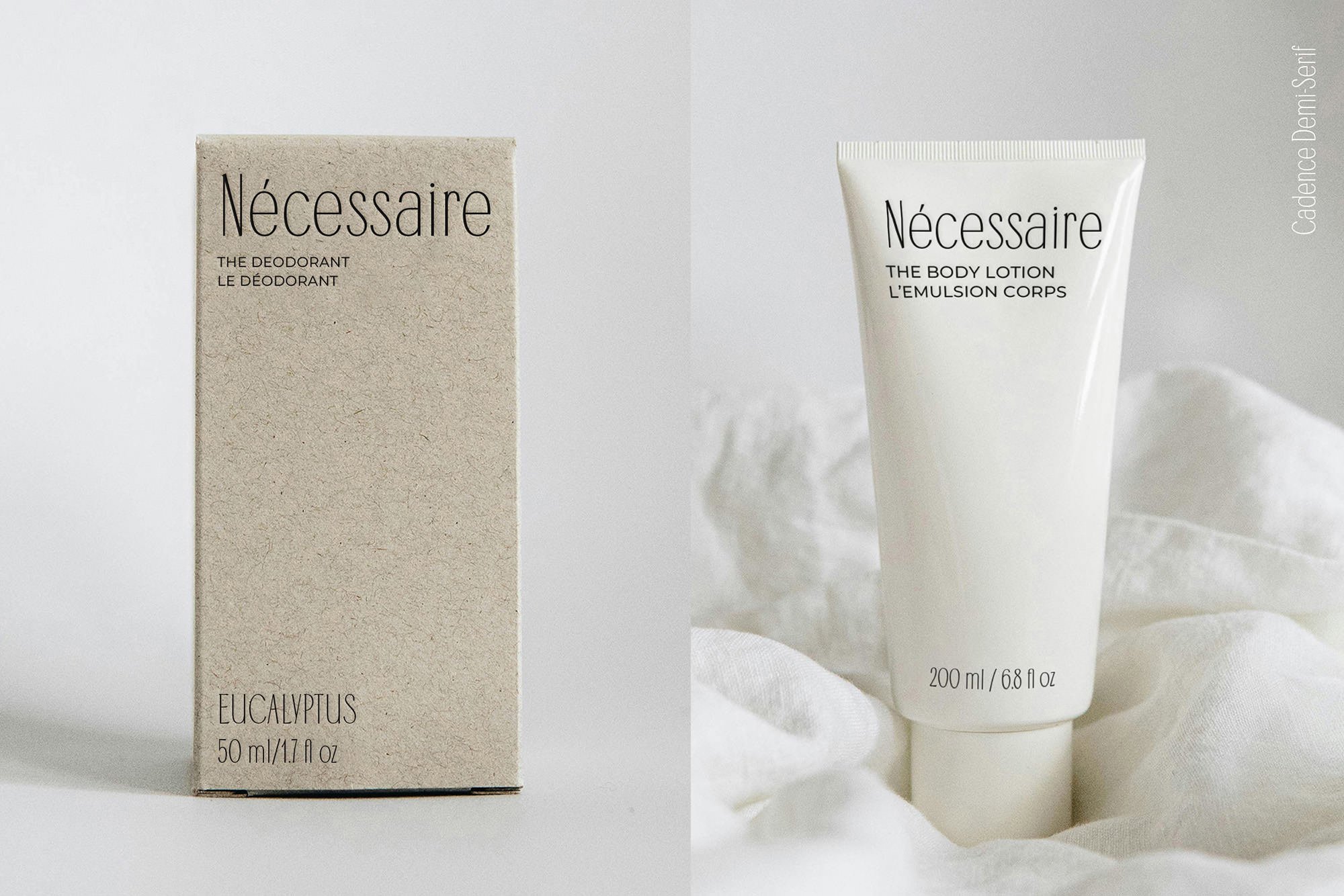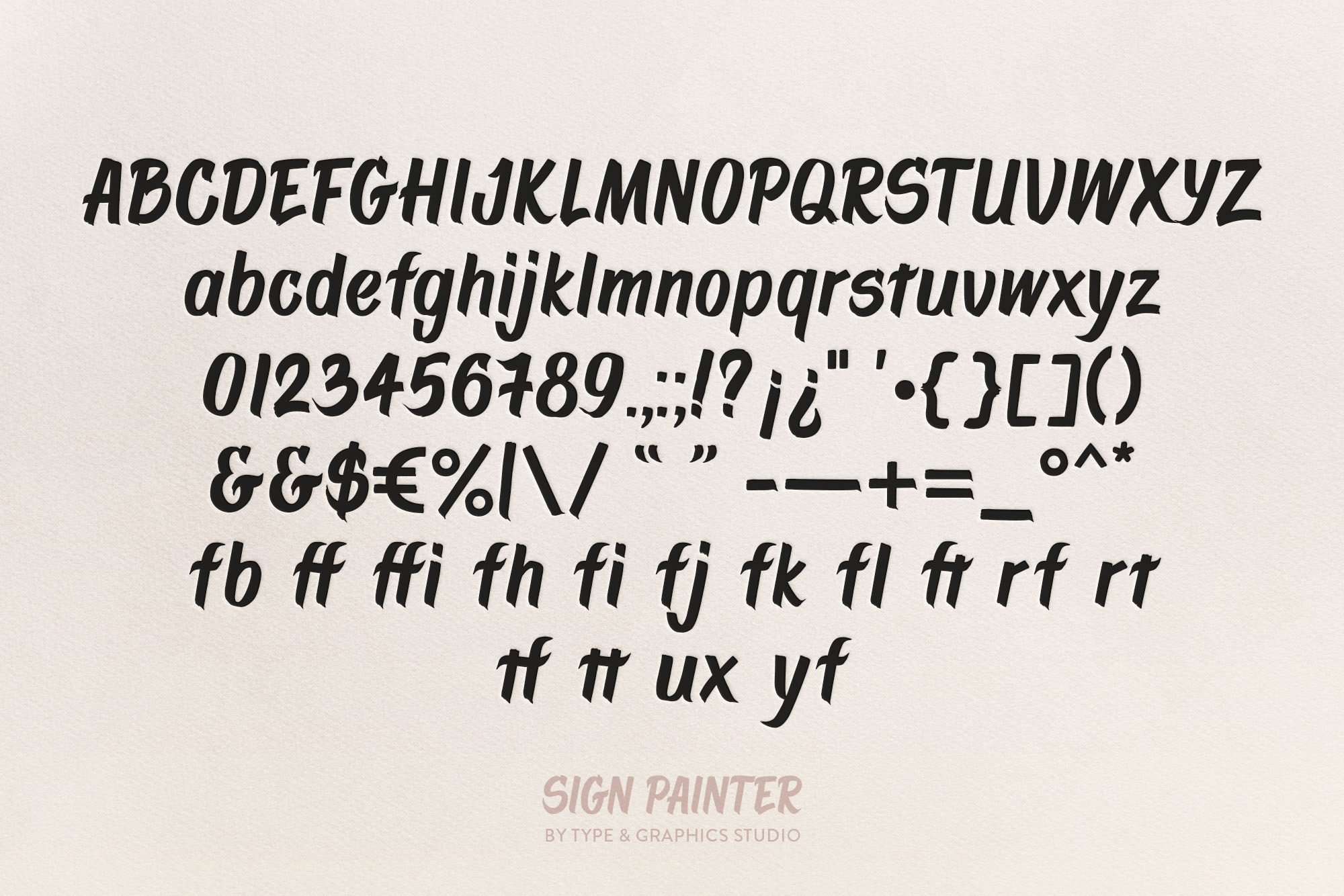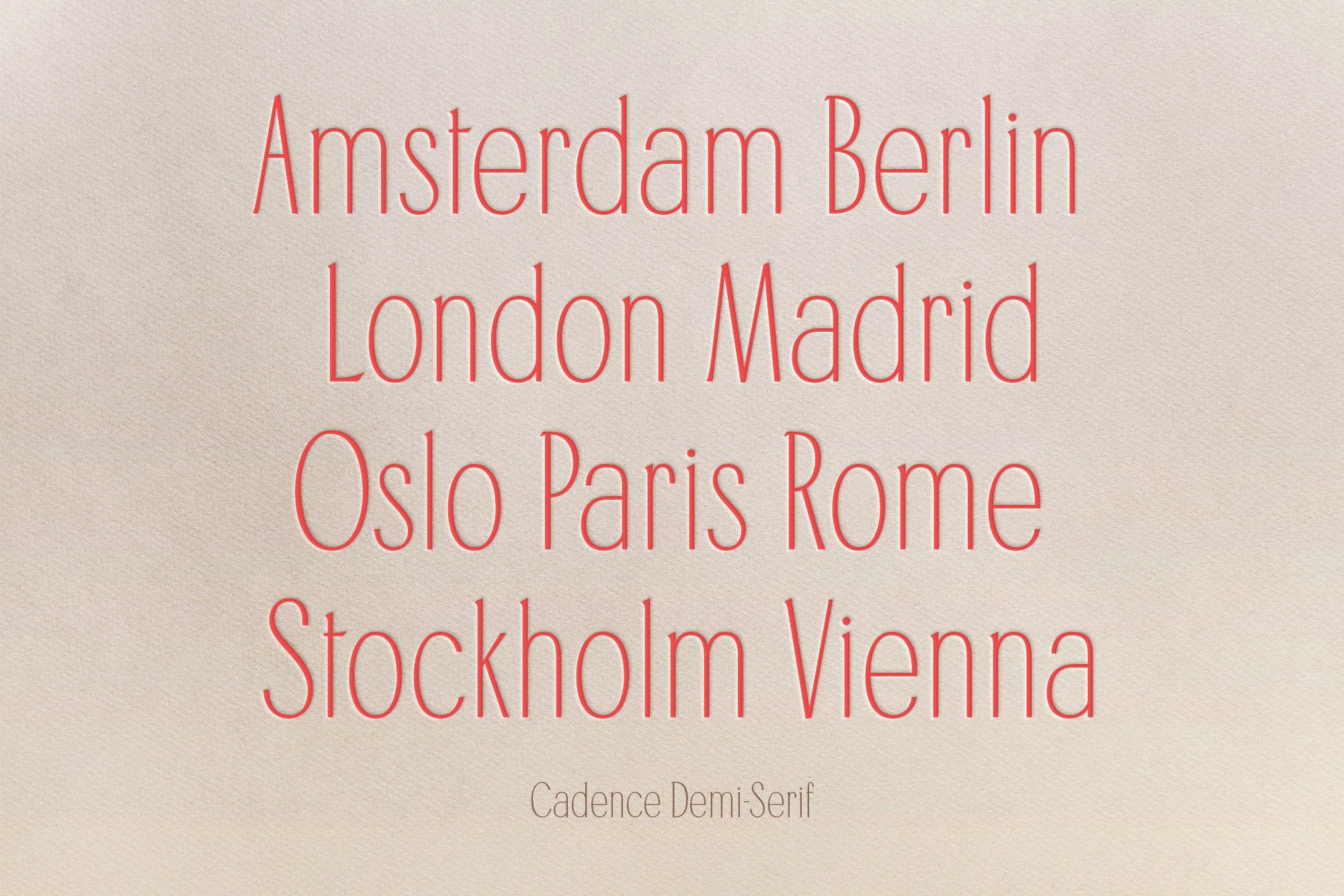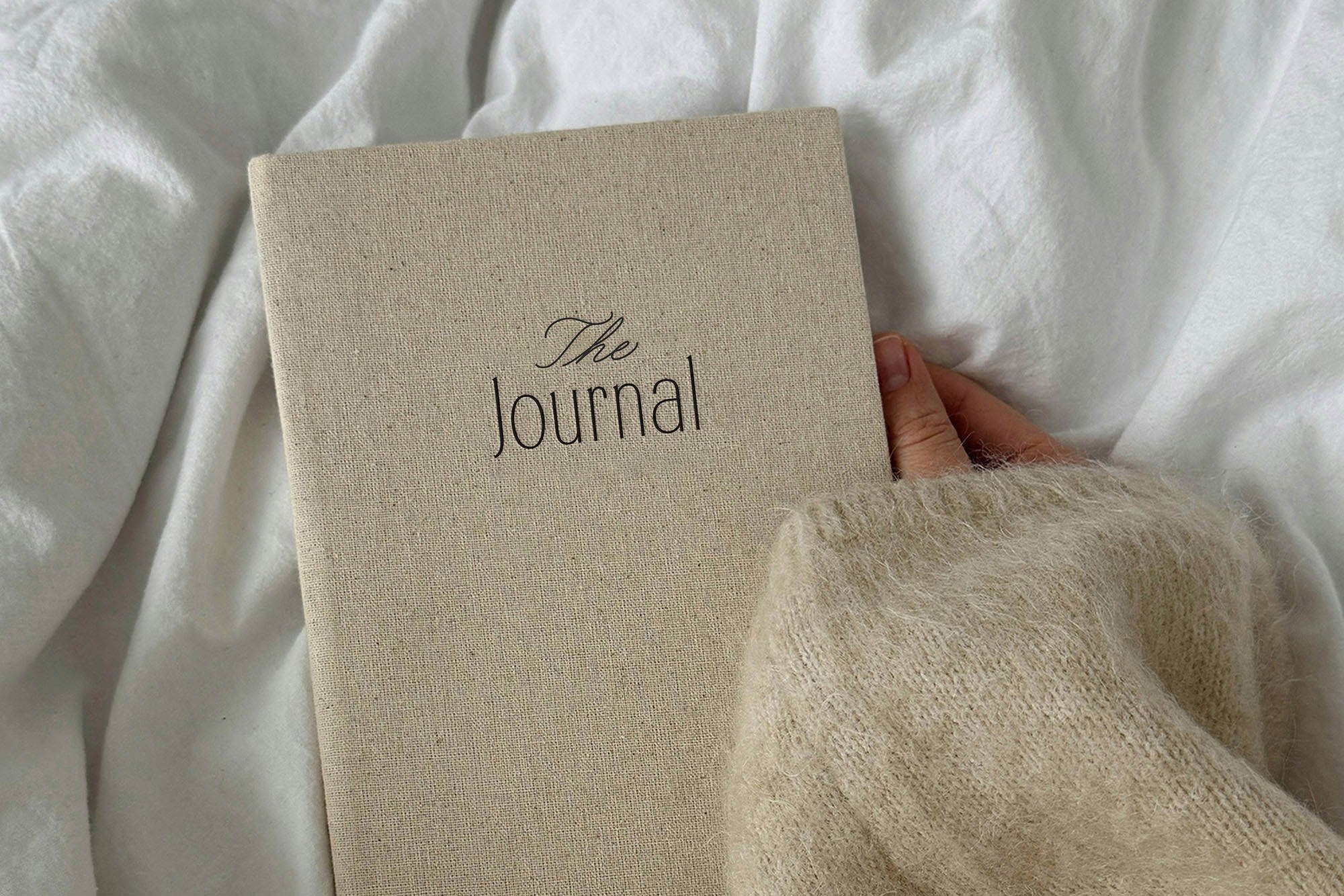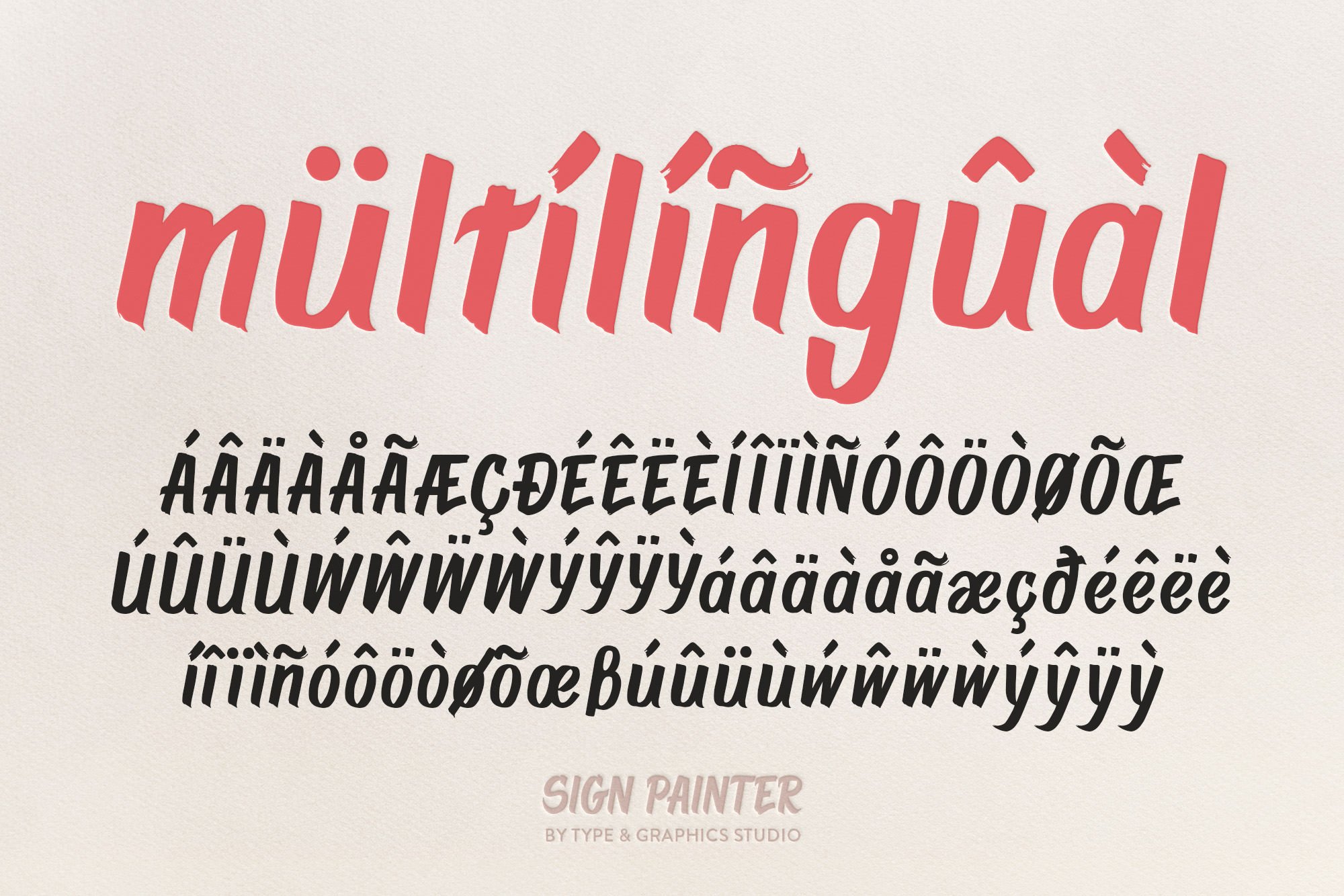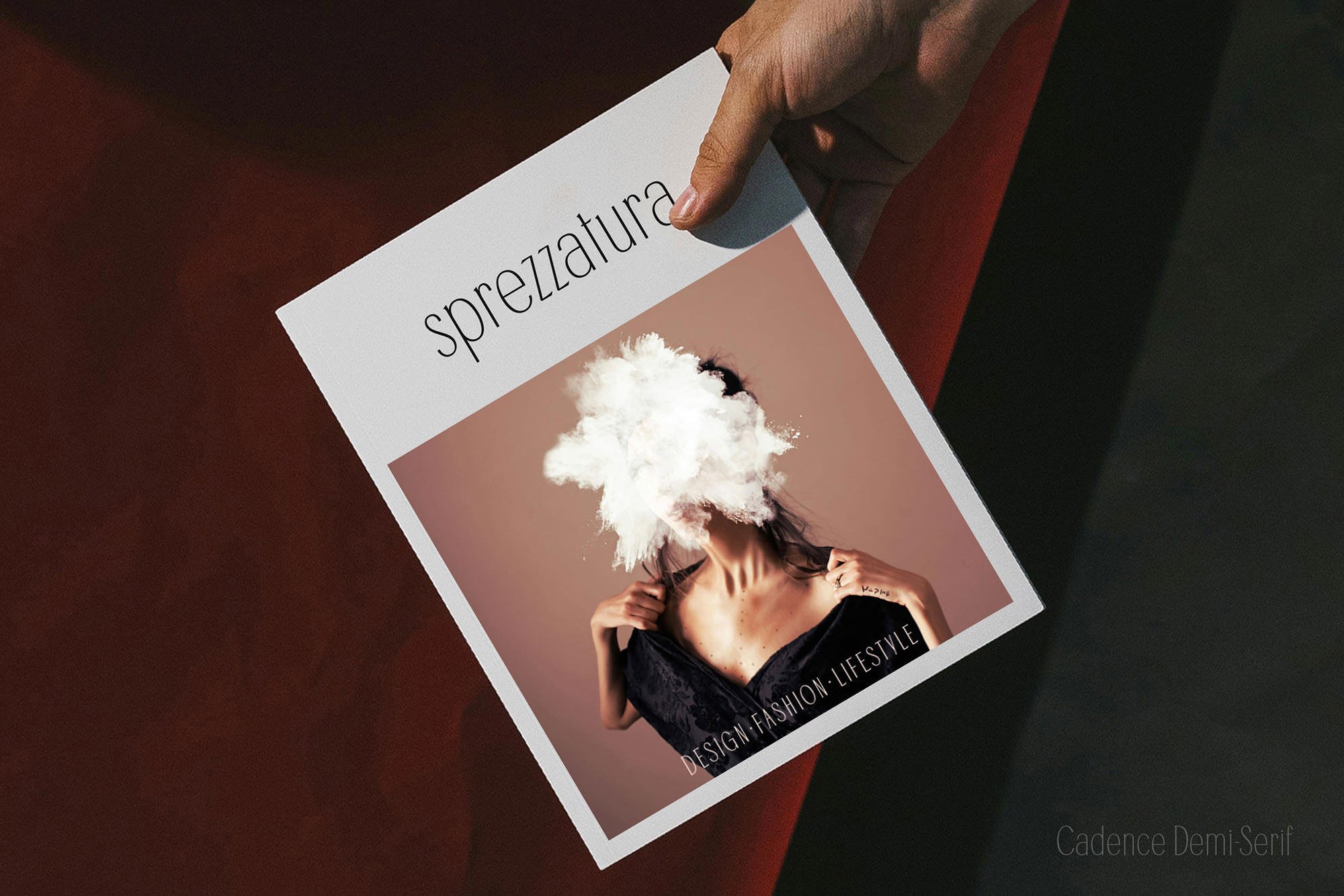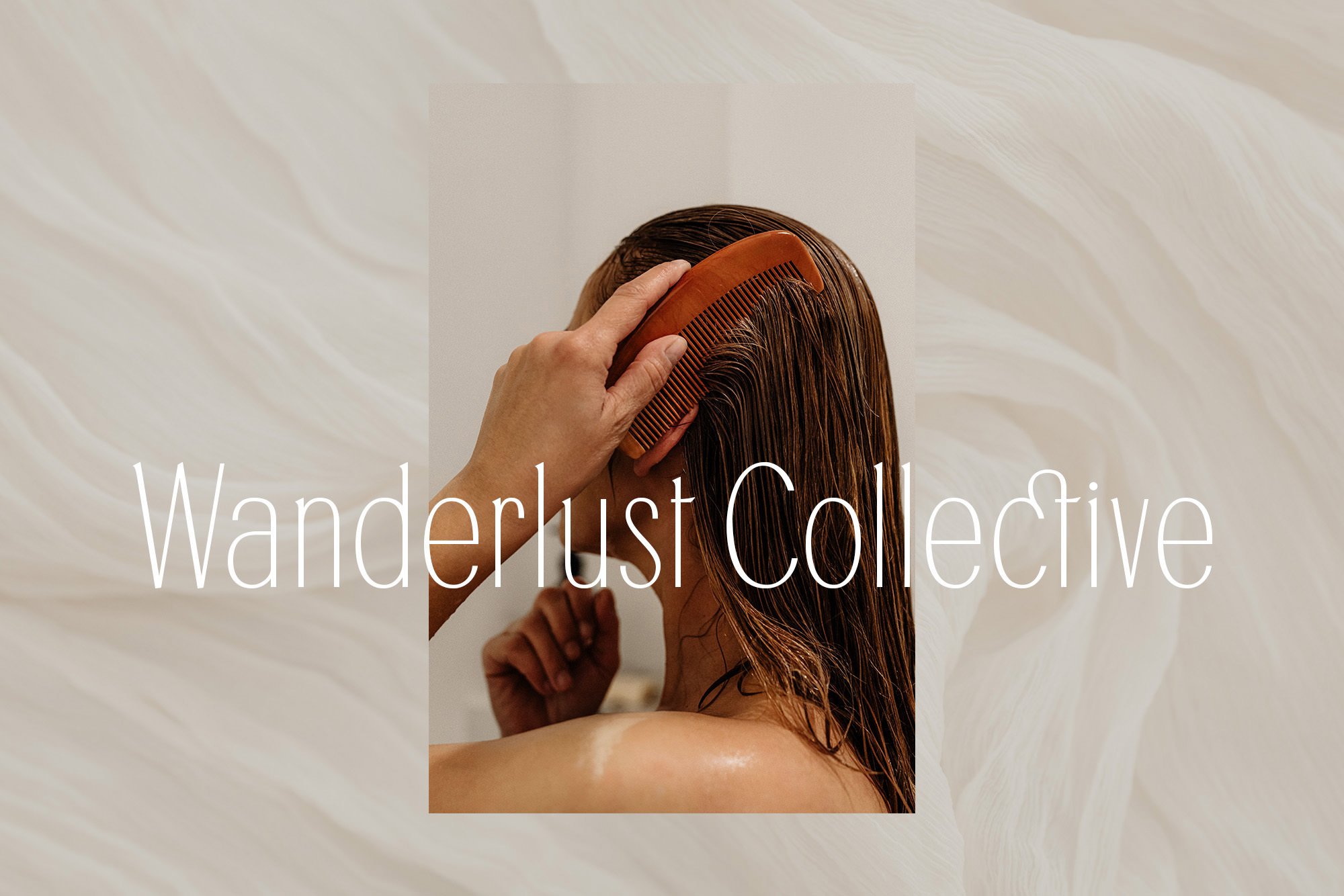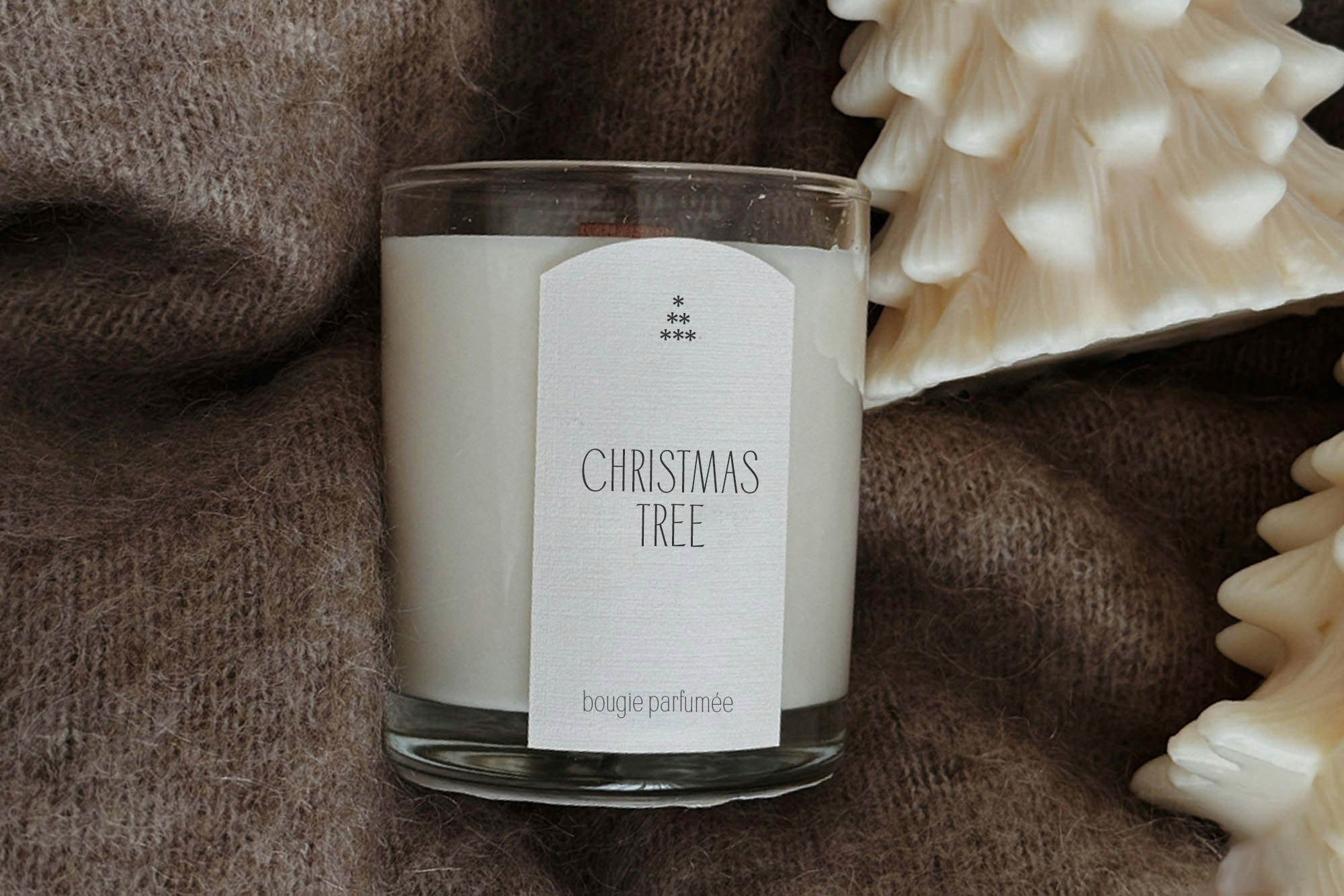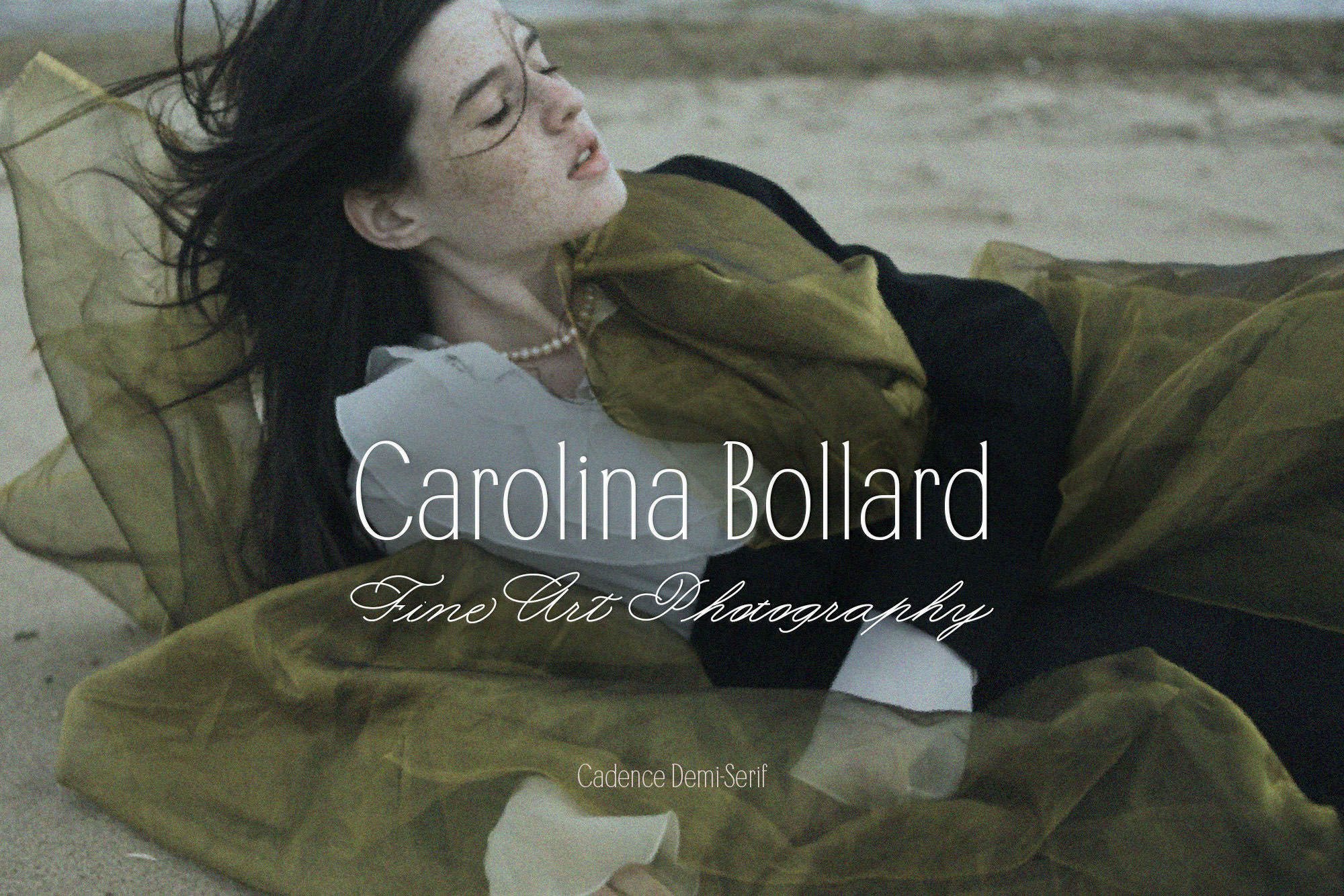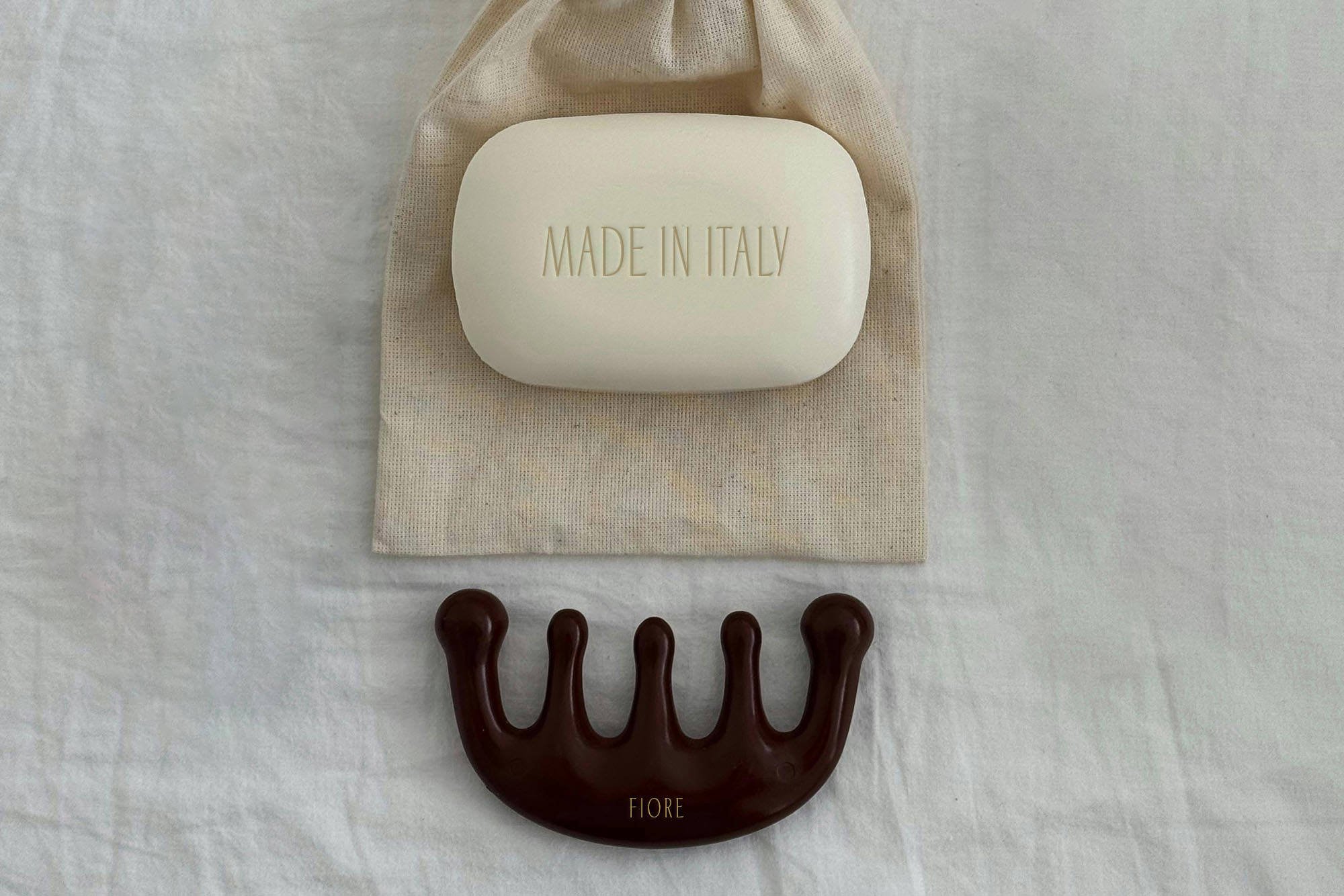
Cadence
A Demi-Serif display Font
Cadence is a refined demi-serif display typeface that balances softness with structure. With its high x-height, subtle Art Deco undertones, and low contrast strokes, it brings a light, lyrical rhythm to your typography.
Designed to feel graceful, modern, and quietly expressive, Cadence blends classic influences with contemporary clarity. The result is a versatile font that feels at home in both editorial layouts and elevated branding.
Fabulous
a Display Italic Font
Fabulous Display Italic offers an elevated sense of style, making it perfect for personal branding, logos, headings, and adding emphasis to important words within quotes.
Originally born from calligraphy practice, it has evolved into a font designed with precision and a clean, modern aesthetic.
Broadway
A casual brush font
Broadway is a modern casual brush font with a nostalgic feel. Ideal for logos, branding, social media posts, and advertisements, it adds a playful and vivid touch to your designs.
Perfect for print and digital projects, such as product packaging and posters, Broadway ensures your message stands out with a unique and lively style.
Sign Painter
A handcrafted Font
The inspiration for the Sign Painter Font came from traditional signage and sign painting in the United States. This display font captures the essence of classic American sign art, blending it with modern design sensibilities.
It includes capital and lowercase characters, punctuation, numerals, symbols, ligatures, and international characters for most European languages. Sign Painter is perfect for logos, posters, product designs, print or digital ads, and more.